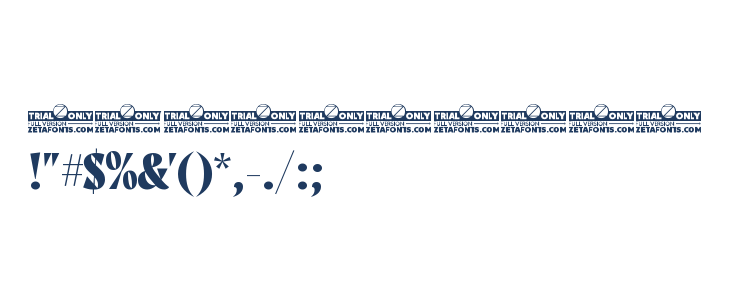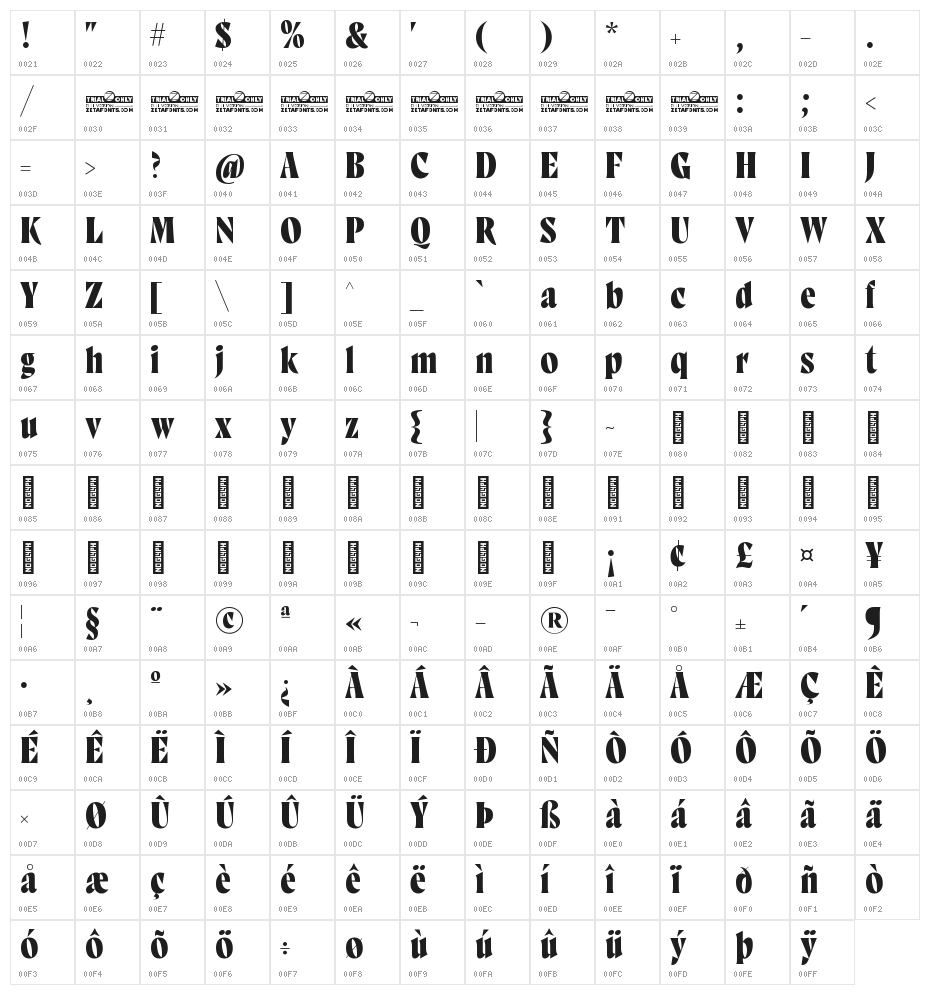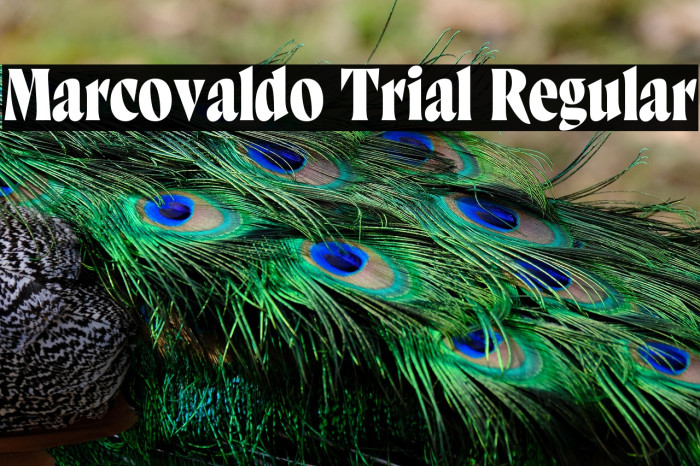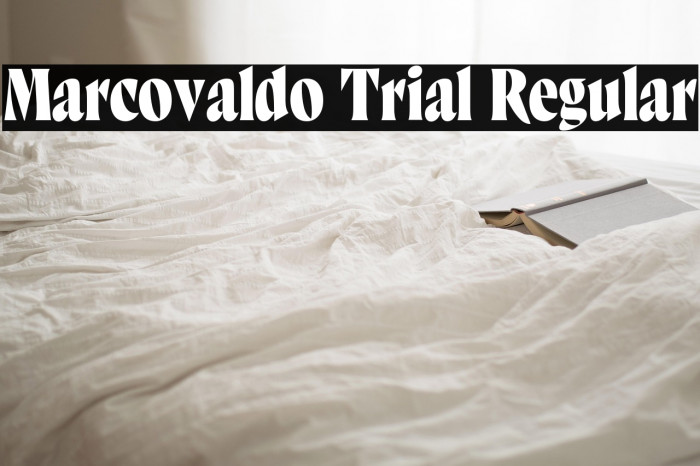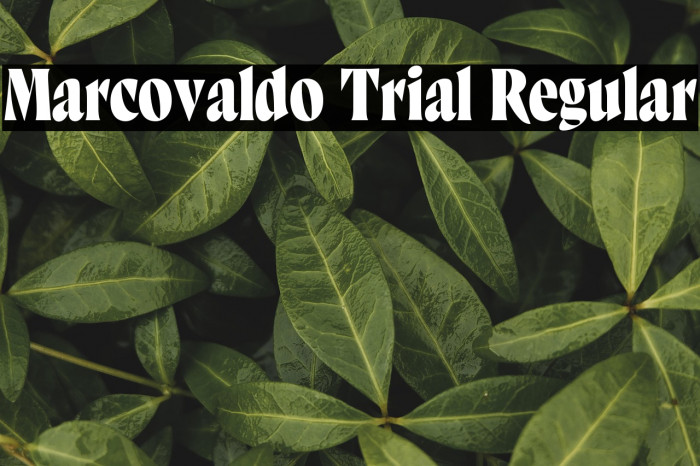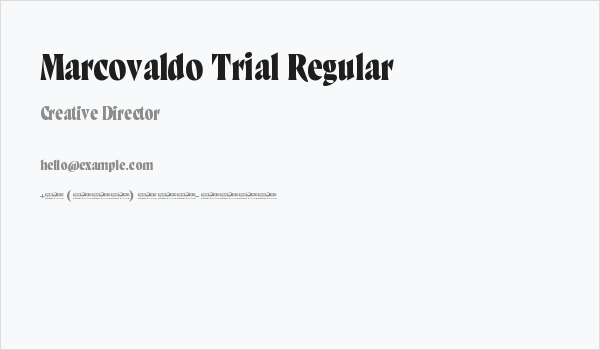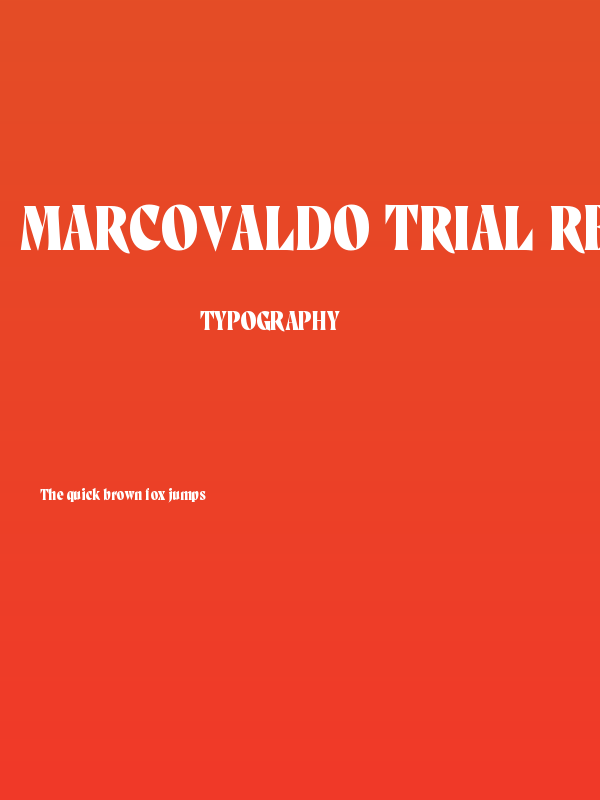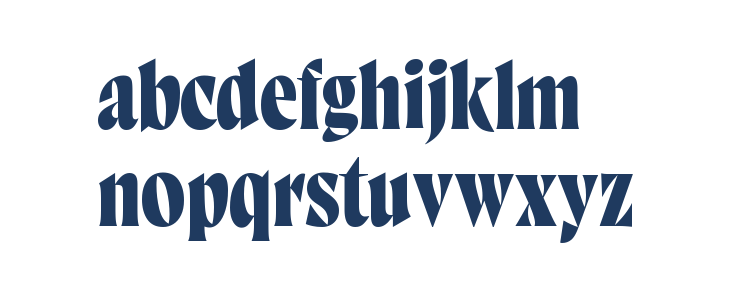
Marcovaldo Trial Regular Font
Marcovaldo Trial Regular Description
This font features a bold and dramatic style with high contrast between thick and thin strokes, giving it a striking and dynamic appearance. The letters are sharply angled, with a distinctive flair that adds a sense of movement and energy. The uppercase letters are particularly bold, while the lowercase letters maintain a consistent weight, providing a harmonious balance. The special characters are designed with the same boldness, ensuring consistency across all glyphs. This font's unique style makes it ideal for projects that require a strong visual impact.
| Proposed Projects | Ideal for headlines, posters, branding, and any design requiring a strong visual impact. |